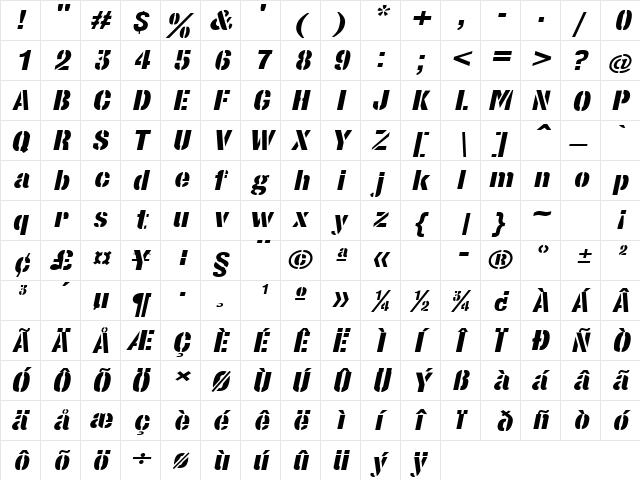
StencilSetExtended Oblique
StencilSetExtended borrows the utilitarian aesthetic of stencil lettering, with its characteristic cutaways and no-frills construction lending an industrial edge. The slanted form adds forward momentum and visual energy.
Ideal for industrial branding, streetwear, military-adjacent aesthetics, and urban signage projects.
Pro Tip: Pair StencilSetExtended with raw, utilitarian design elements — exposed concrete textures, flat colour, and minimal ornamentation suit it well.